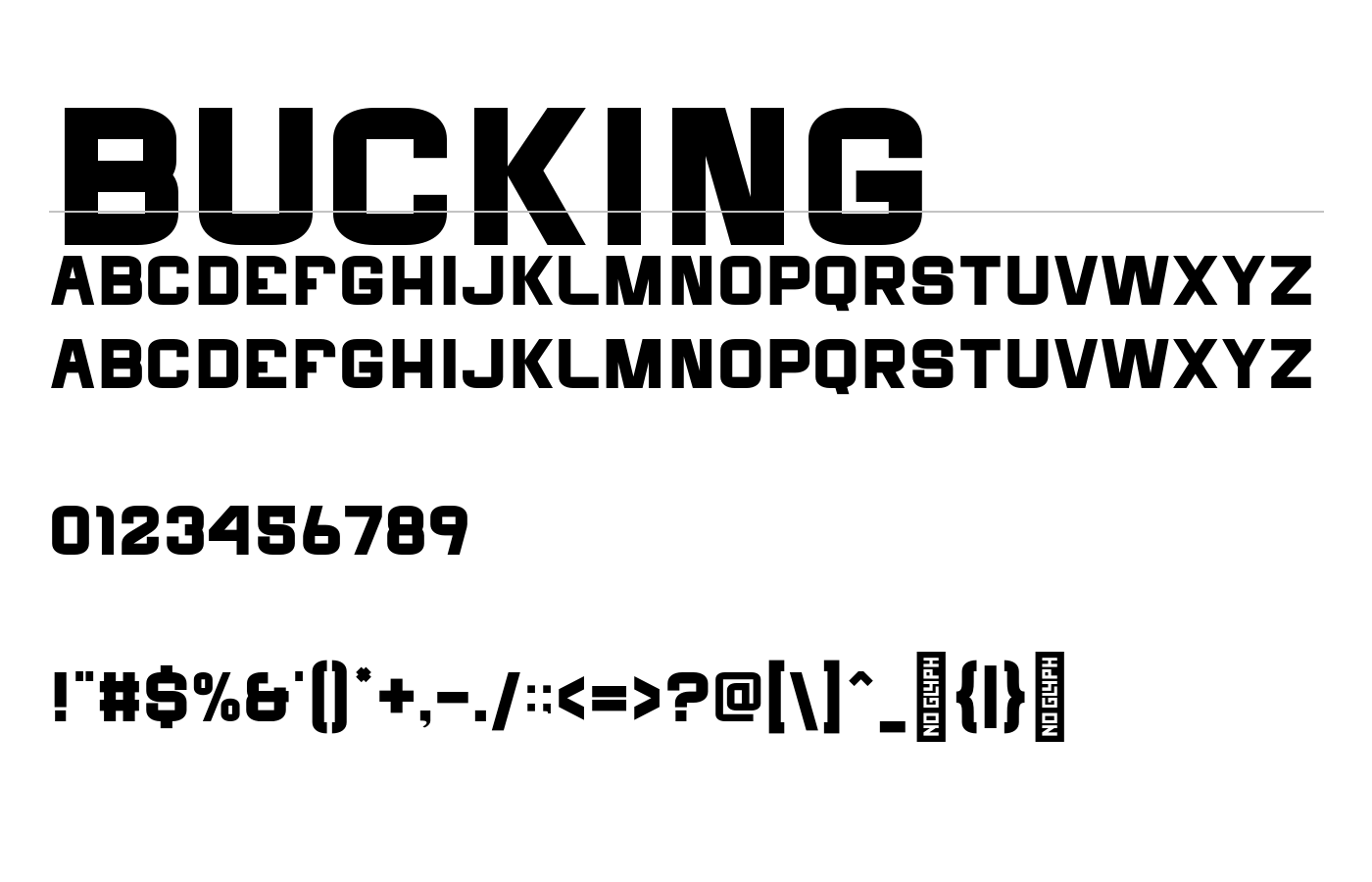
Bucking is a bold, condensed sans serif font with a strong, industrial feel. Its solid, geometric letterforms and high x-height make it highly legible and impactful, perfect for attention-grabbing headlines, logos, or branding that demands a modern, powerful presence. This font works well in contexts where strength and clarity are key, such as sports, technology, and urban designs.
Bucking Font